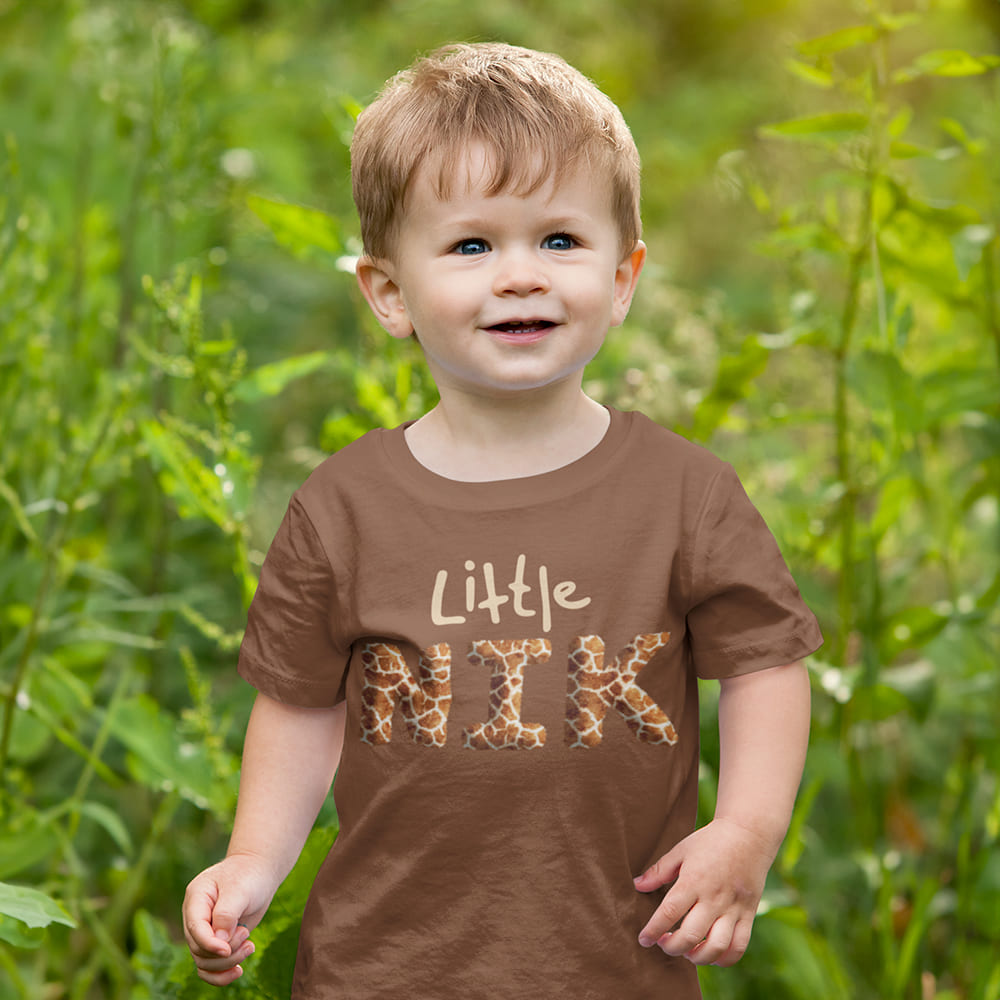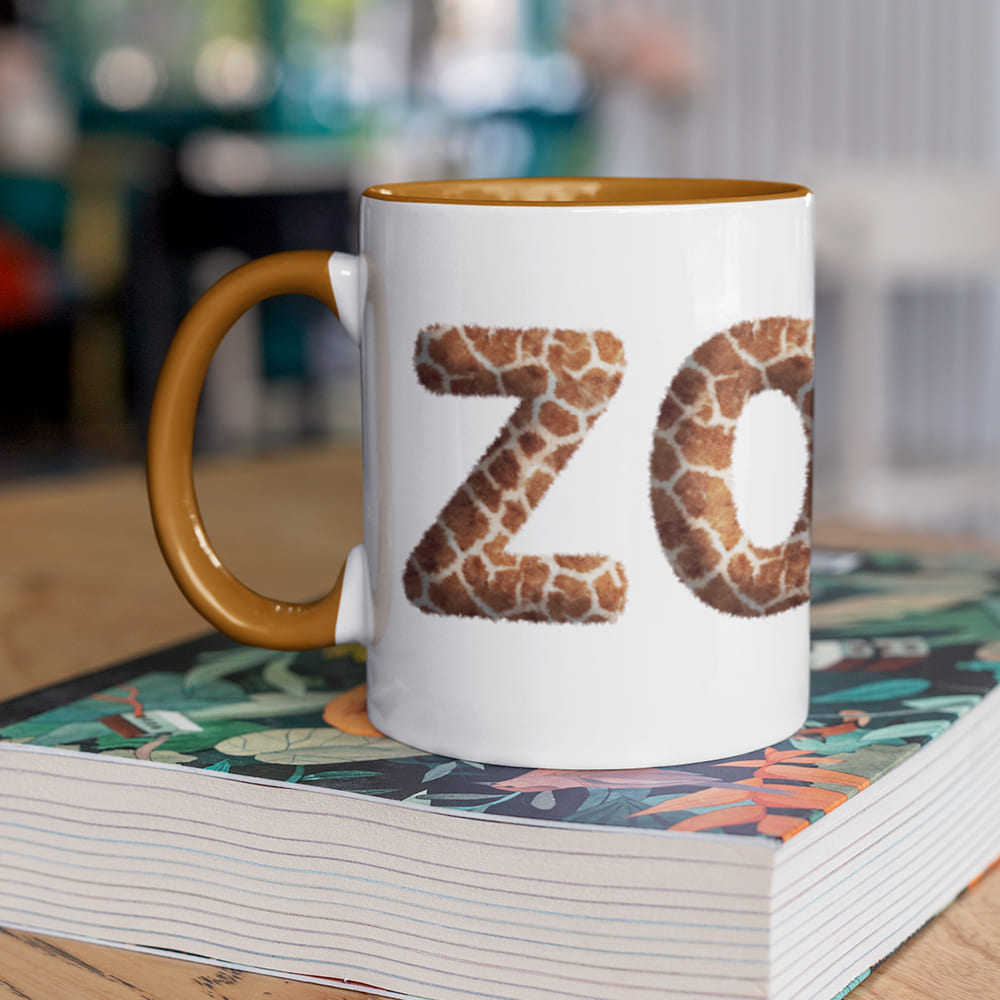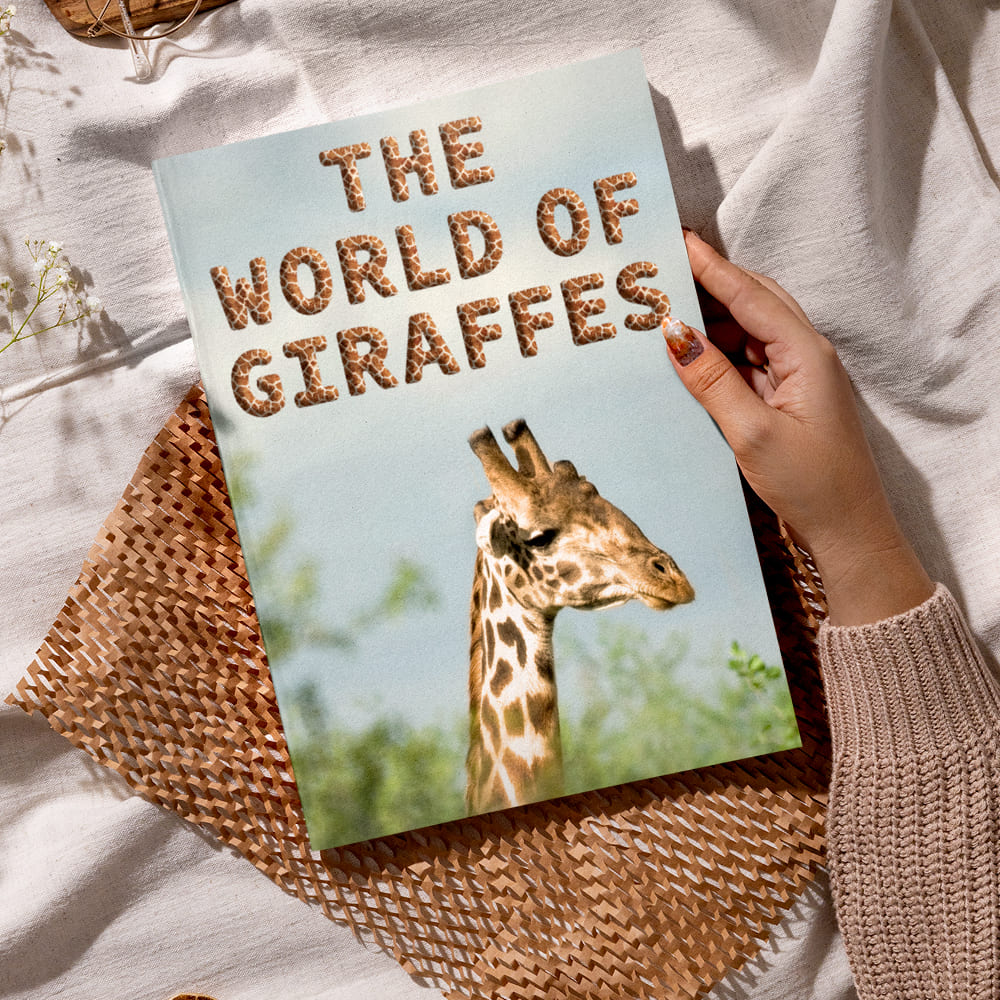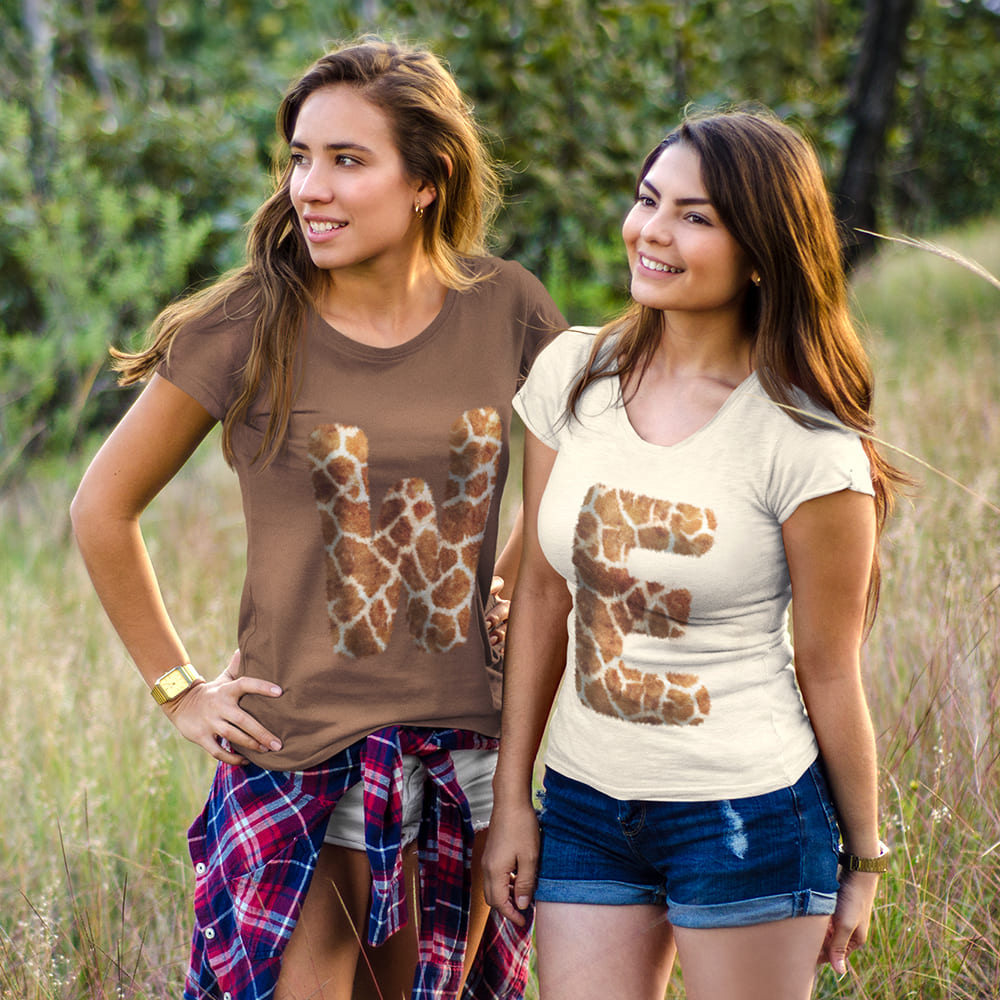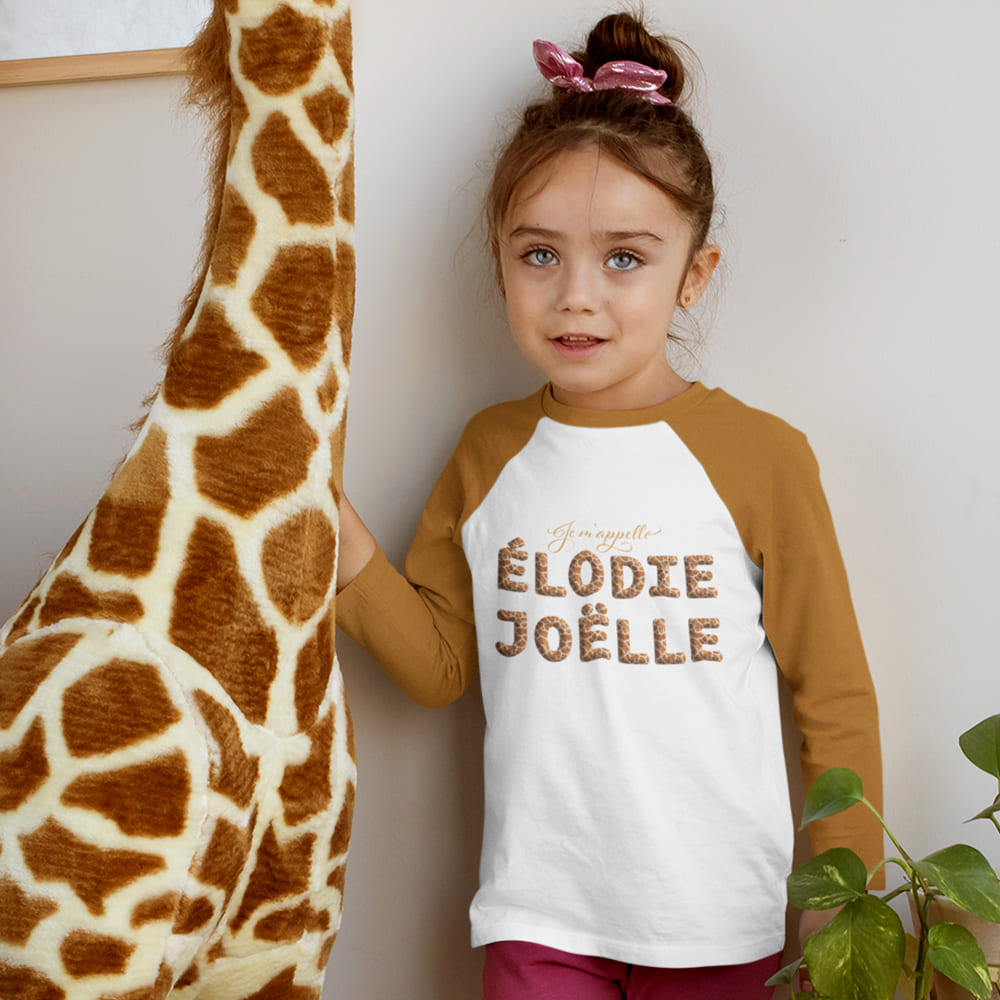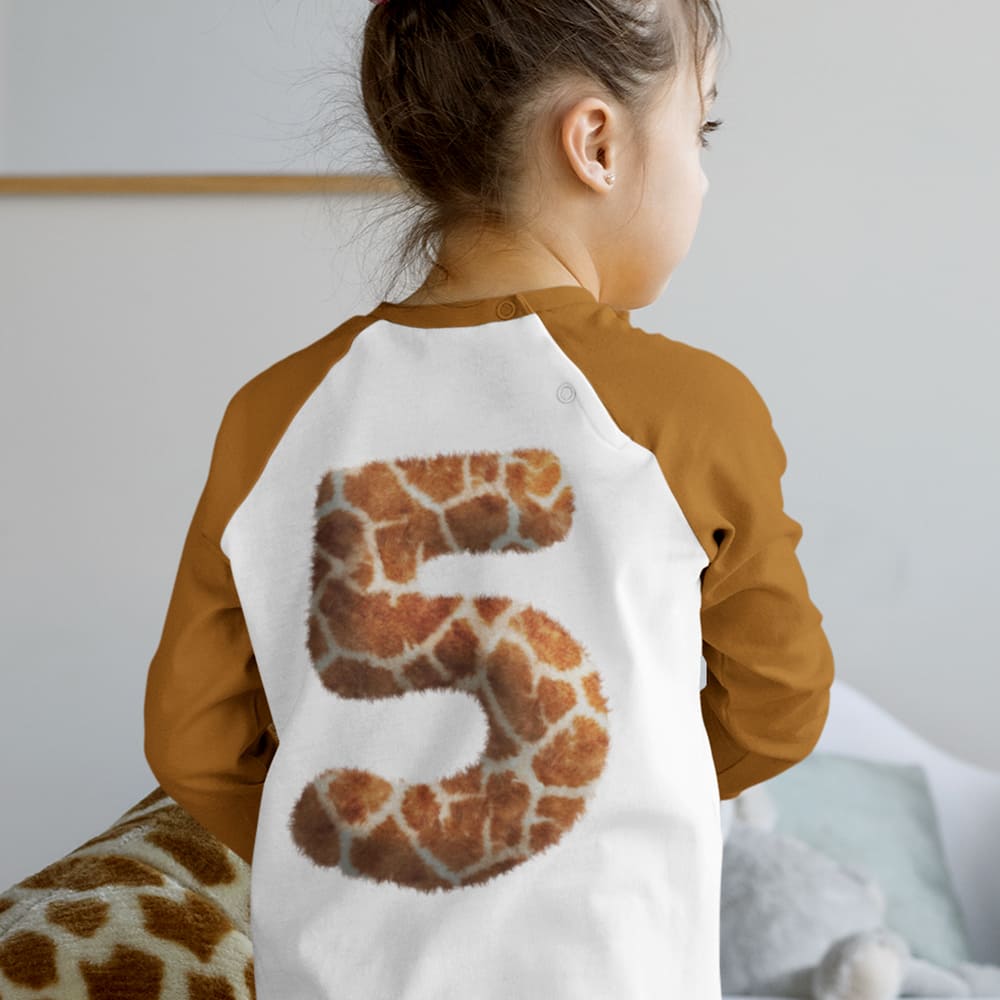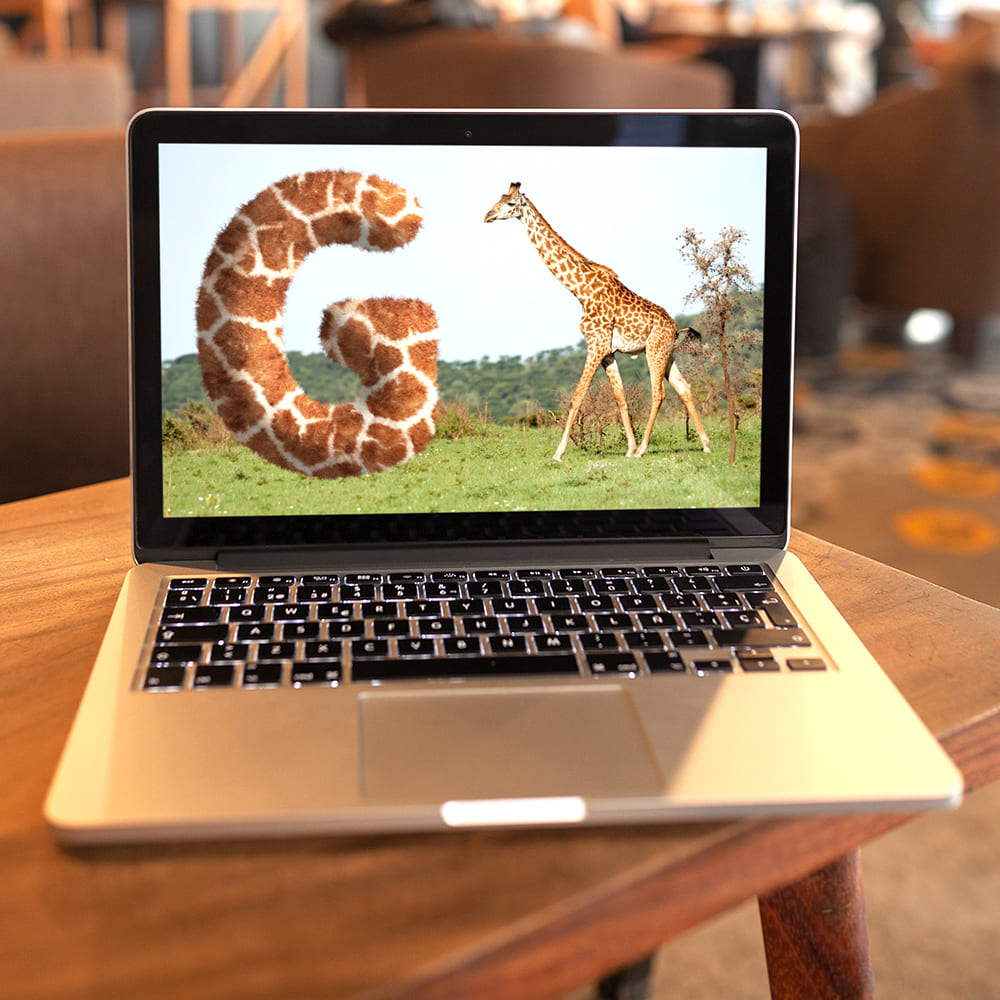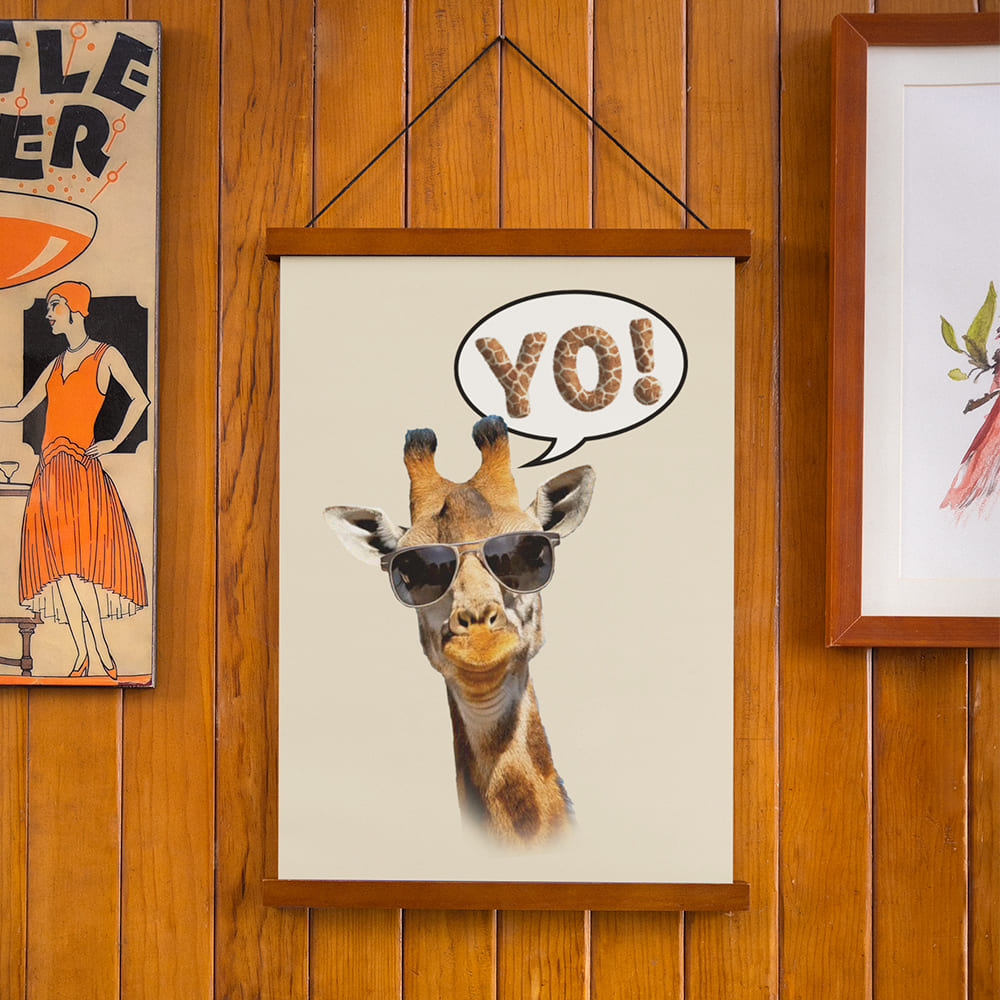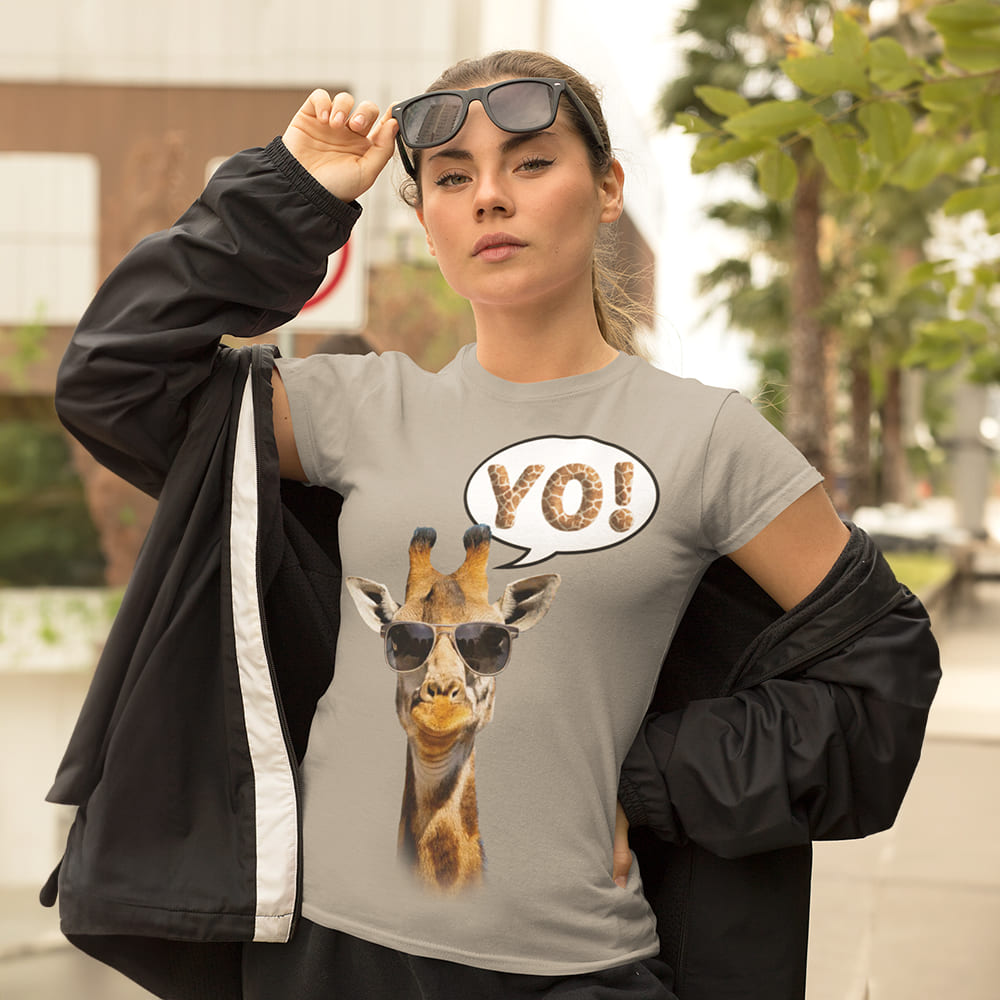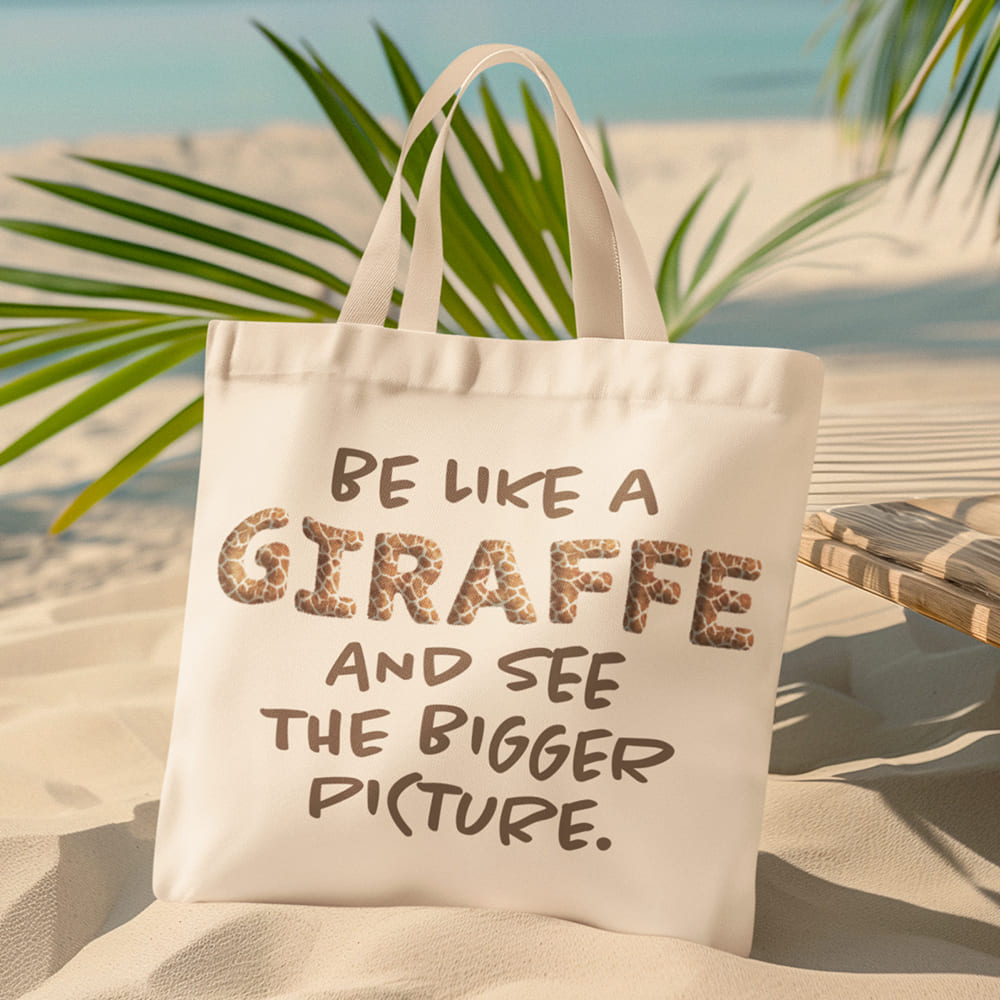
Giraffe Font
Elegant, Unique, Reach for the Sky 🦒🌍📷
If your design calls for grace, sophistication, and a touch of the exotic, then the Giraffe Font is the perfect choice! Inspired by the majesty of the savanna, this font blends smooth elegance with bold individuality—standing tall and unforgettable.
The giraffe is a symbol of vision, grace, and natural beauty. With its distinctive pattern and towering stature, it stands apart from the rest—just like this font! Perfect for designs that need to be stylish, confident, and absolutely one of a kind.
Why Choose the Giraffe Font?
🔹 Striking & stylish – A tall, sleek, and artistic font that elevates your message with elegance.
🔹 Exotic & creative – Whether for fashion, branding, event design, or editorials, this font adds a refined and distinctive touch to any project.
🔹 As unique as nature itself – Inspired by the giraffe’s unmistakable pattern, this font brings a sense of natural exclusivity and sophistication.
Take Your Design to New Heights!
With the Giraffe Font, you bring grace, uniqueness, and a bold presence to your project. A font that stands above the rest—just like the tallest beauty of the savanna.
🔹 Rise above the ordinary. Be unique. Choose the Giraffe Font.